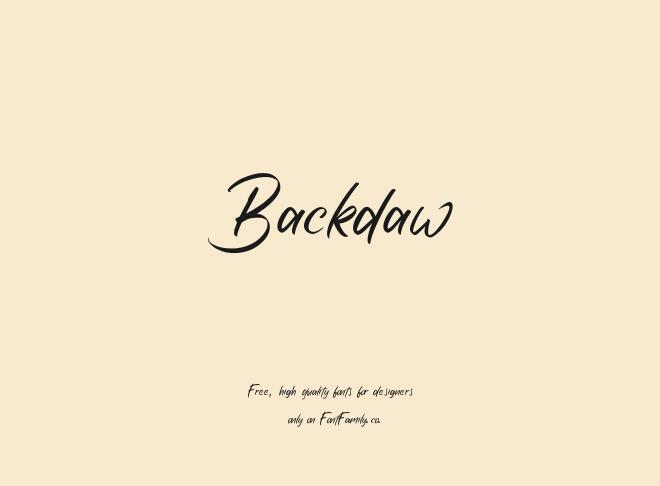
Backdaw Font
Backdaw Font is a unique, playful, and rustic typeface introduced by David Bergsland. Its bold display style is inspired by retro designs, making it an excellent choice for vintage-themed projects. The font's character set is versatile, offering designers a wide range of possibilities for creating eye-catching headlines, logos, posters, and more. While Backdaw Font has its roots in retro design, it fits perfectly into contemporary design contexts, offering a fresh take on classic styles. Its boldness stands out, yet it maintains a friendly and approachable vibe. Compared to other fonts, Backdaw provides a distinctive personality that can help a design project stand out. If you're looking for a font that offers retro charm, boldness, and playfulness, Backdaw Font is a great choice.